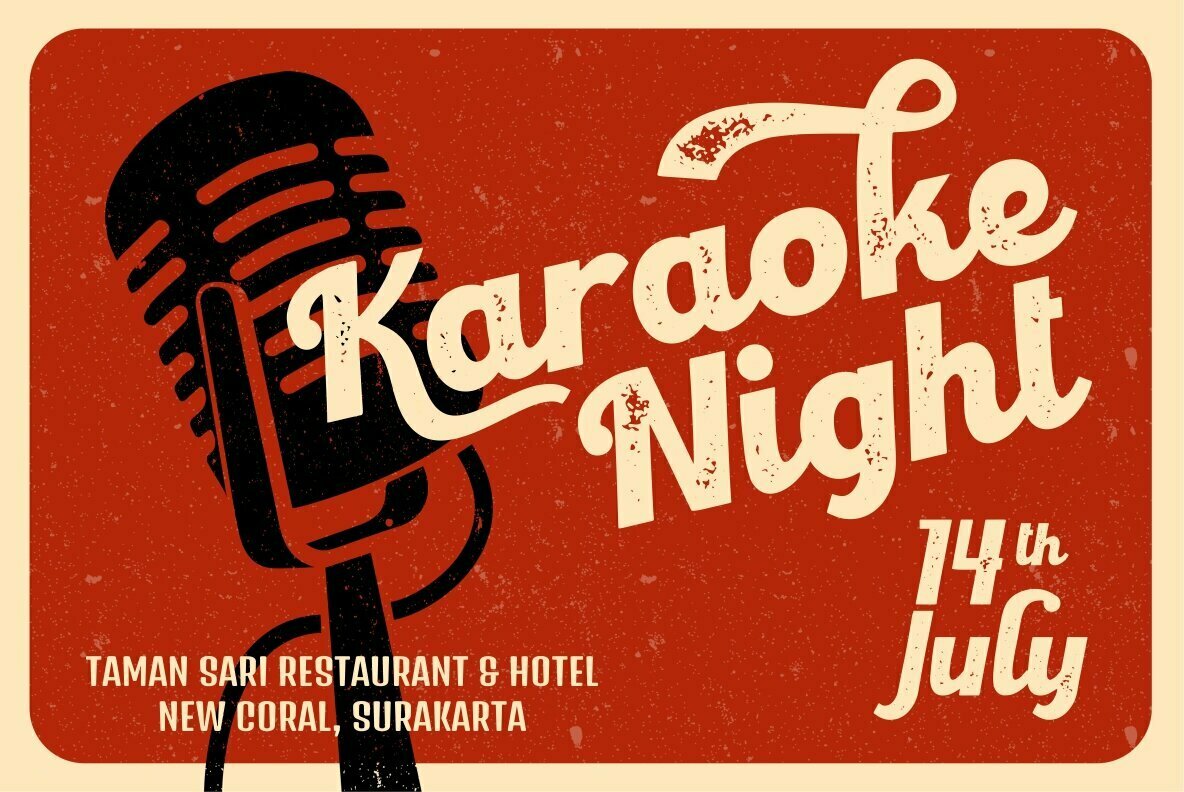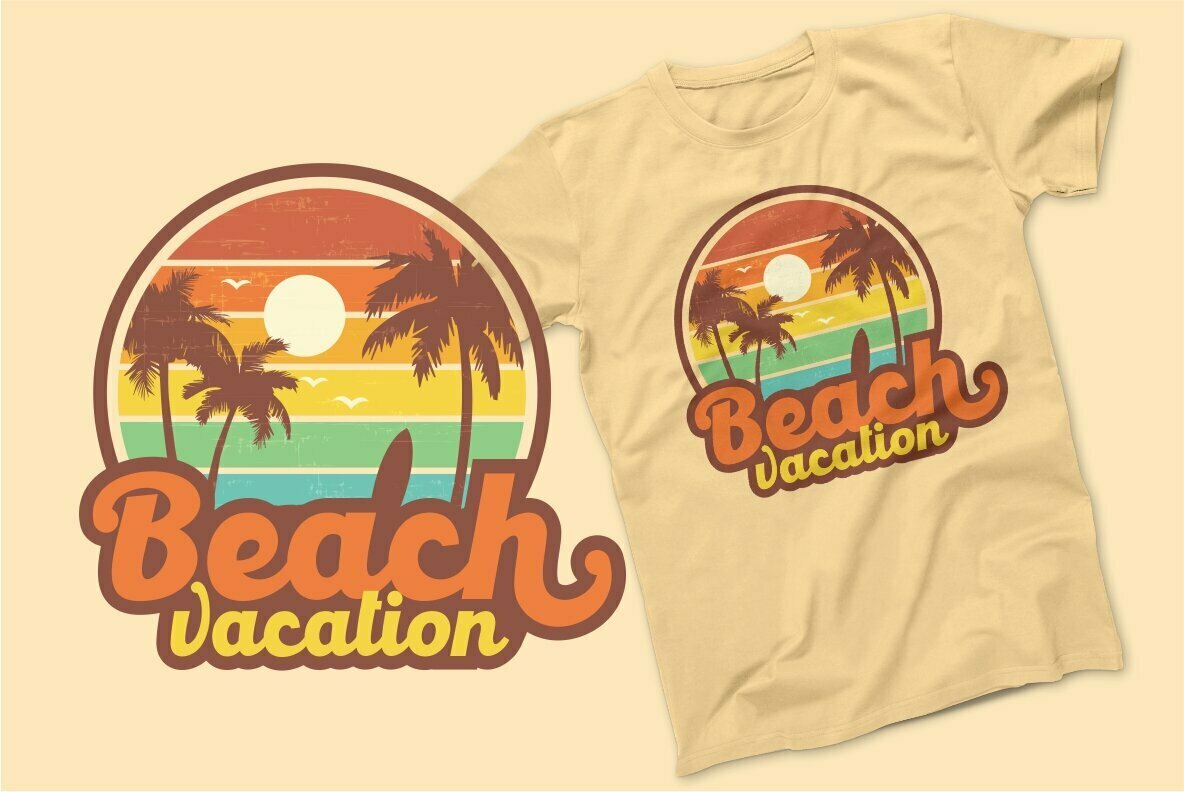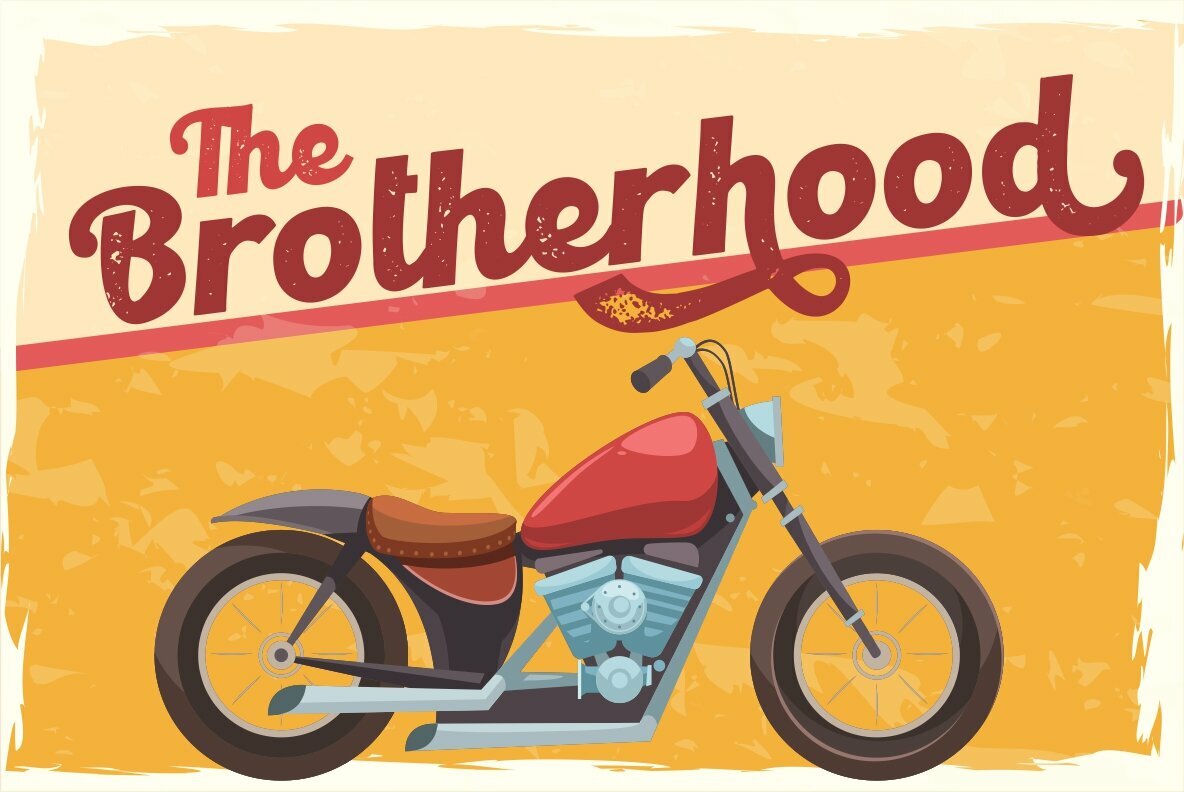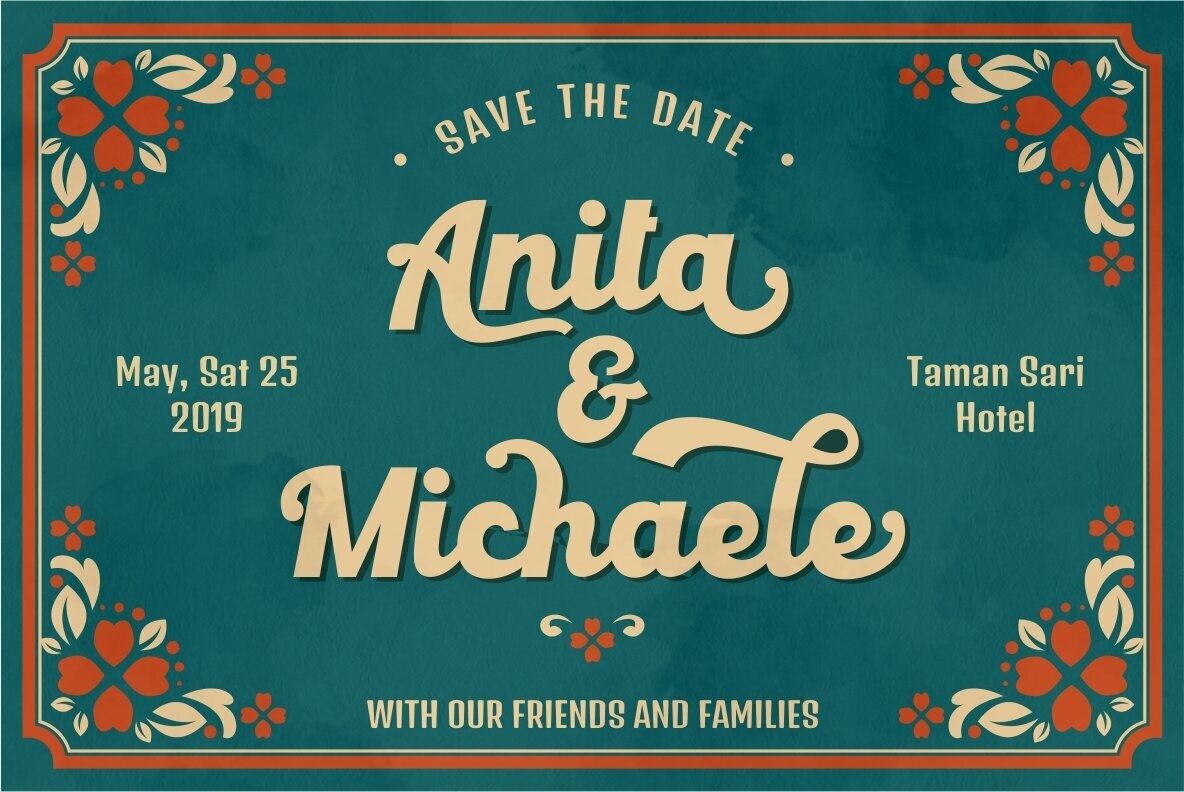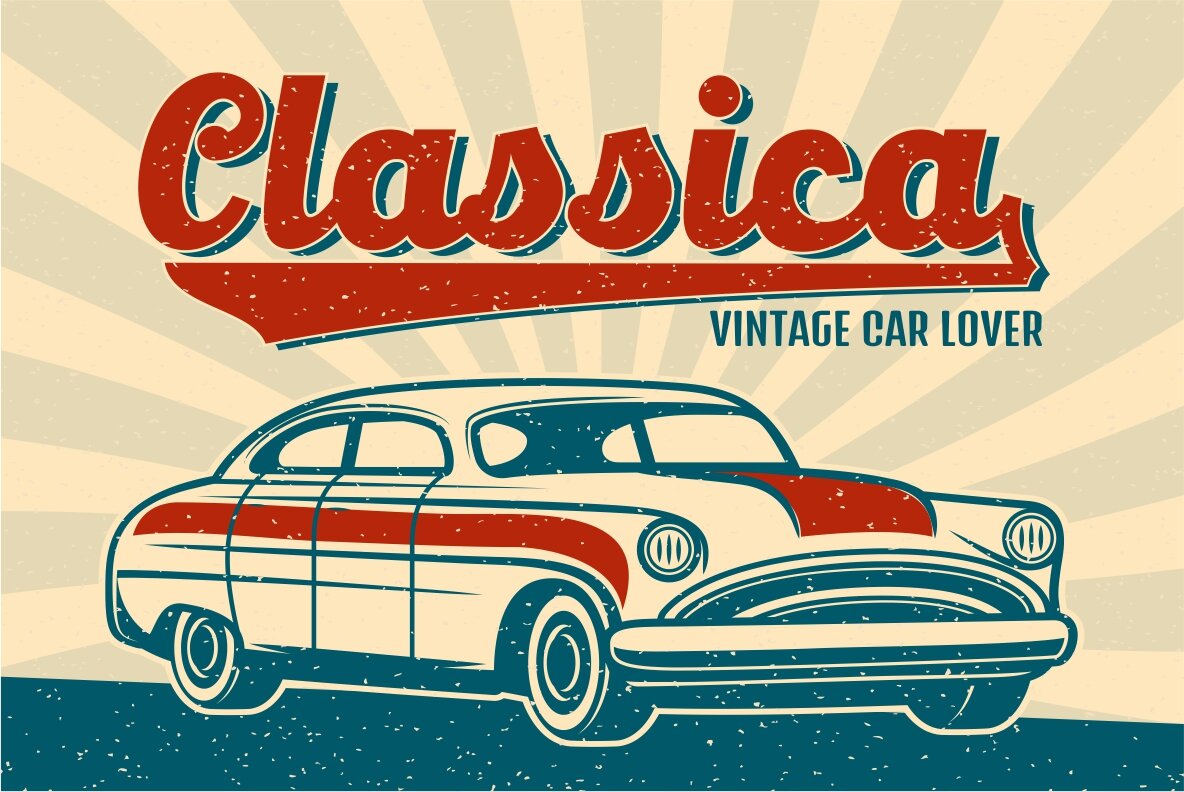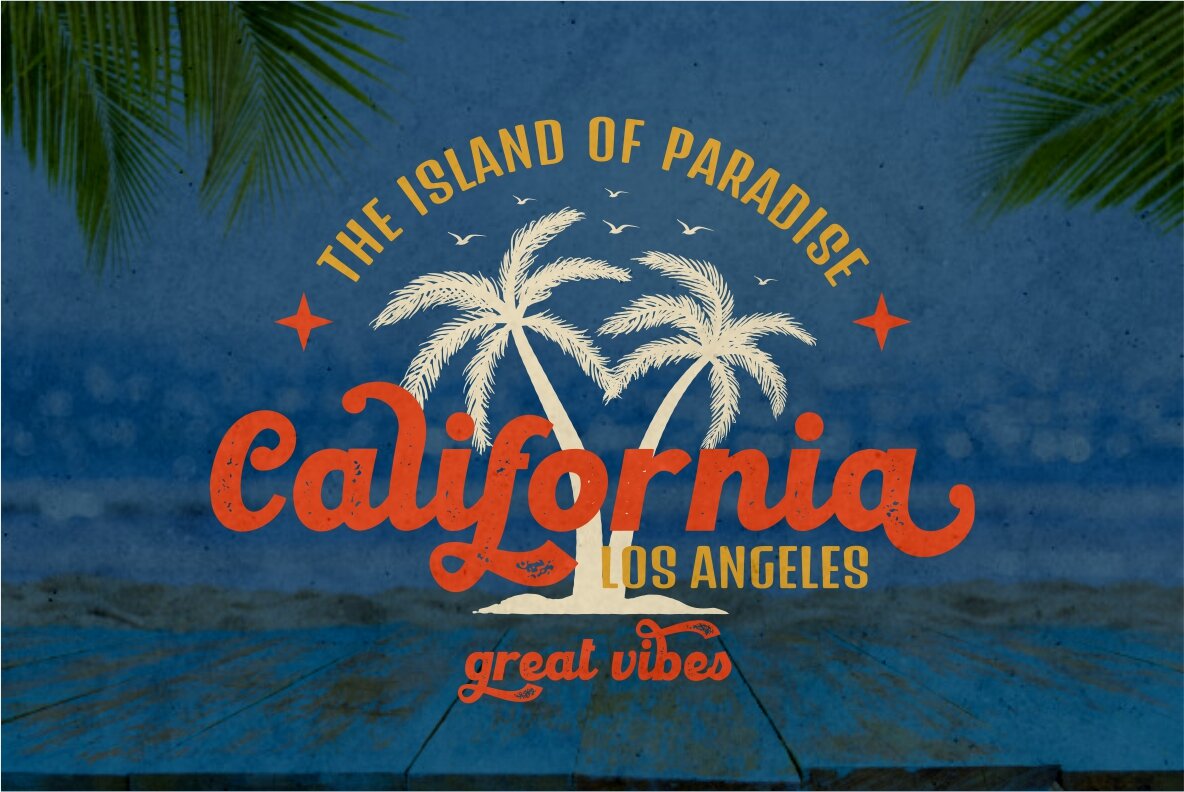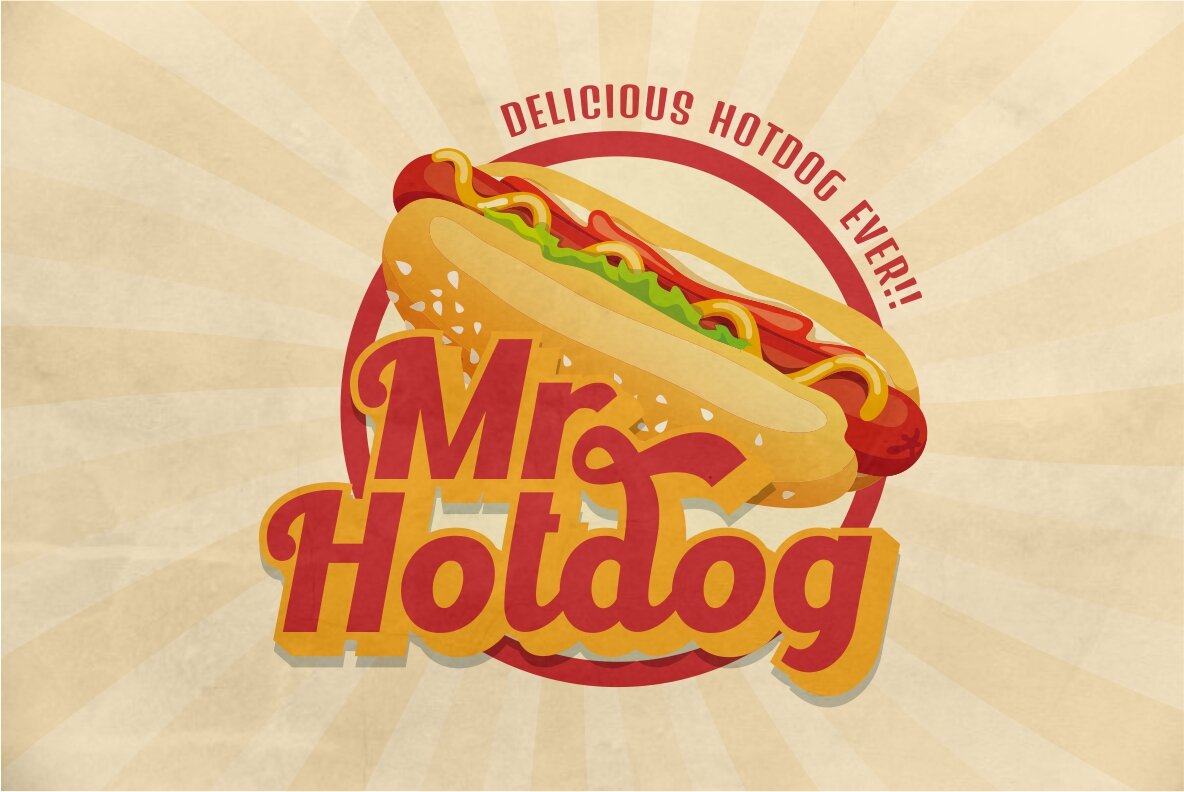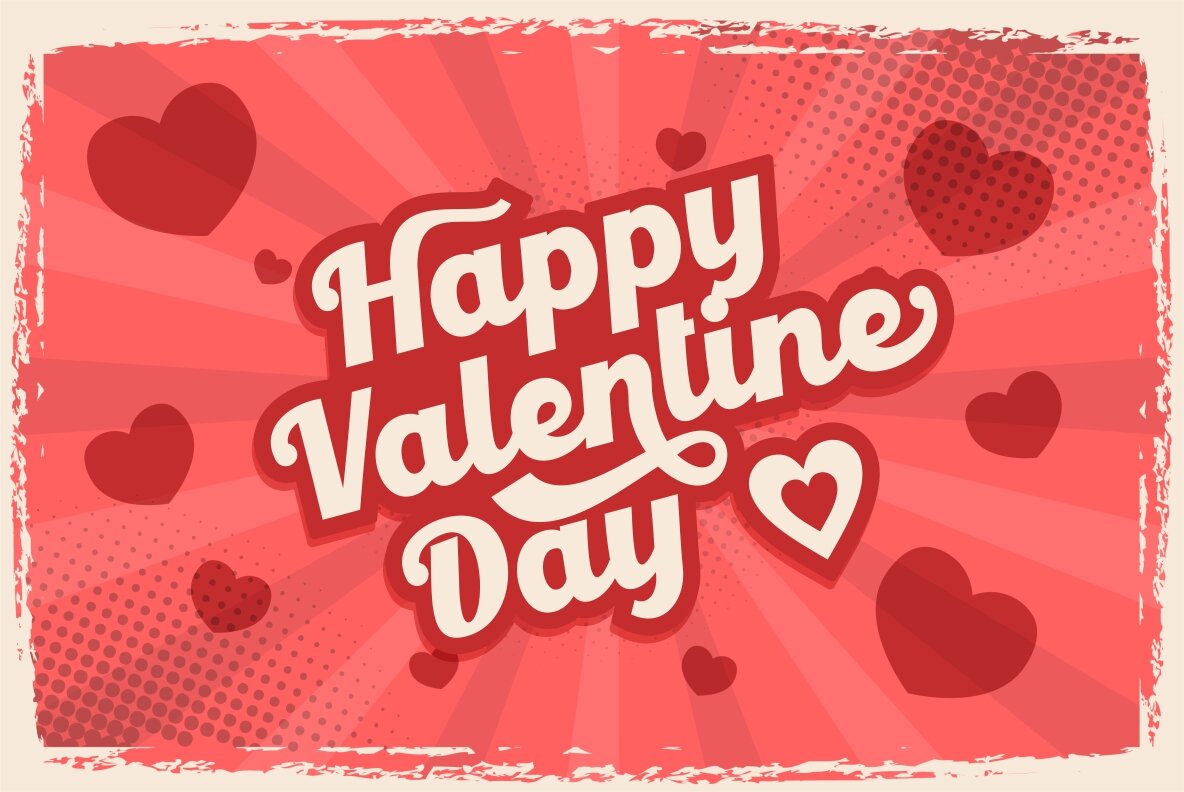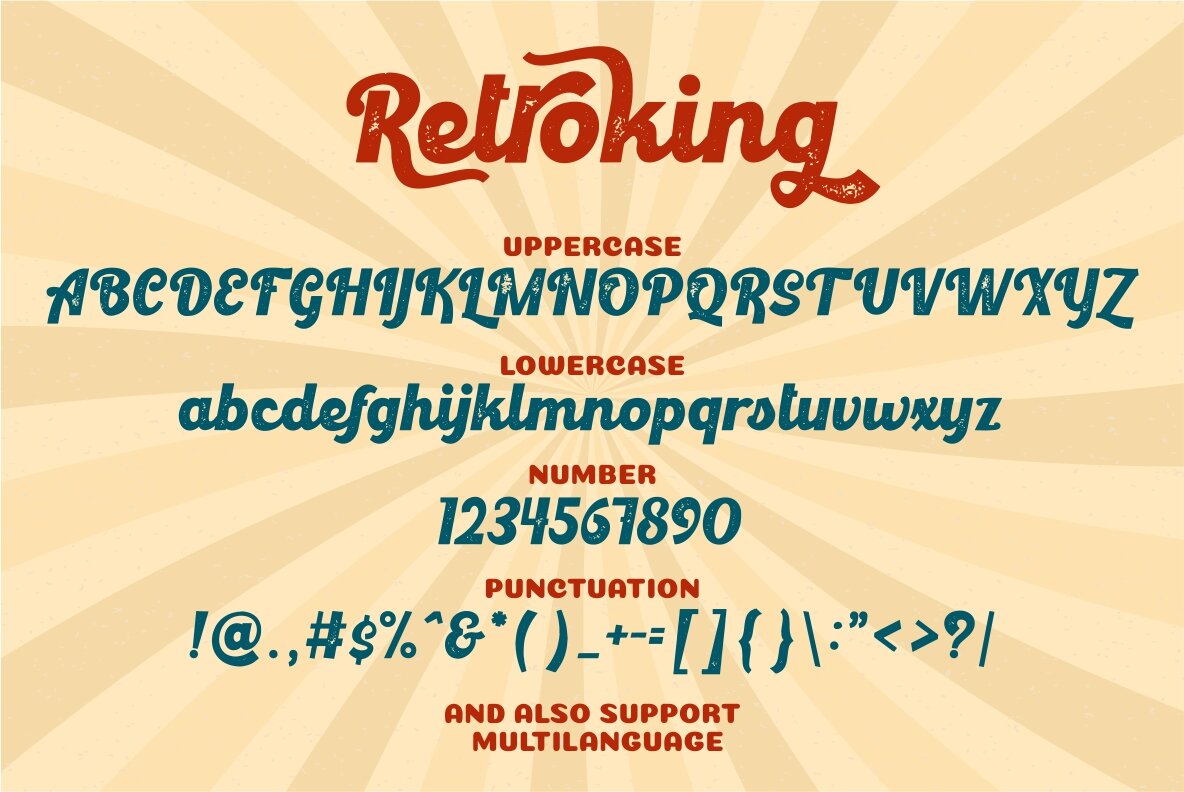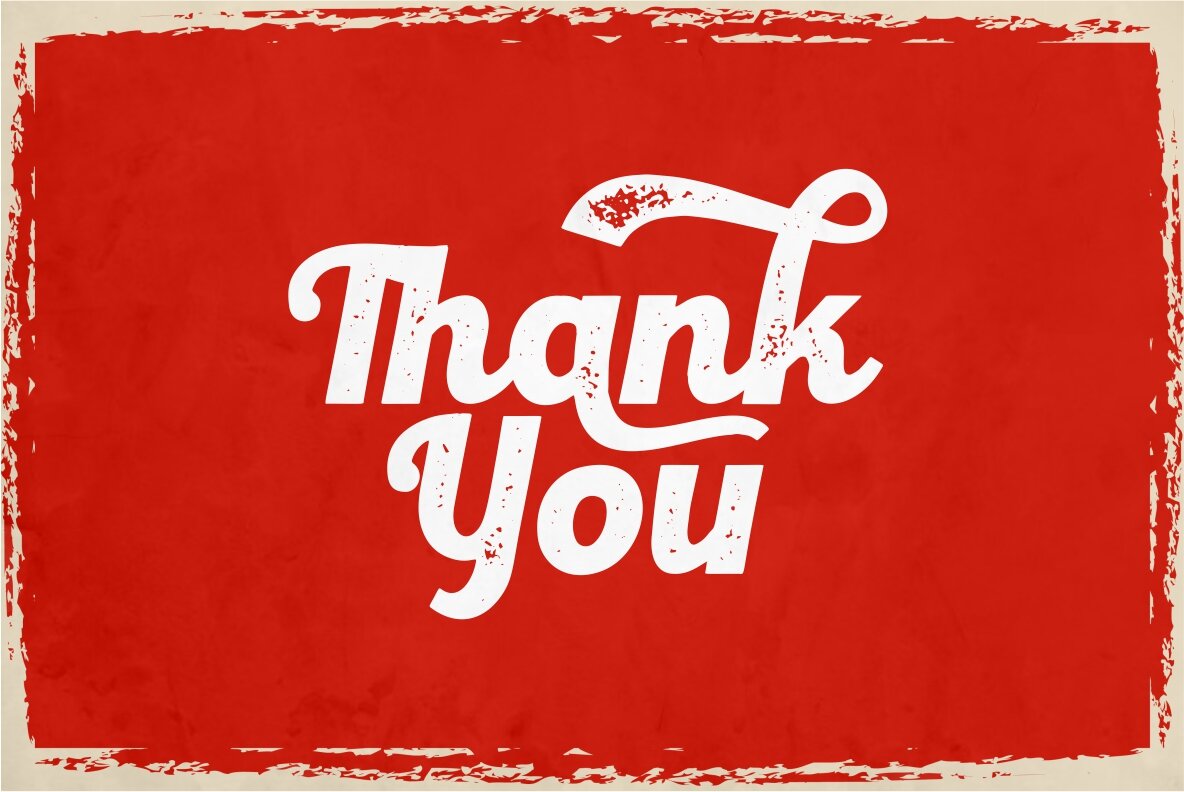
Retroking Font
Retroking by Putra Novembria Candra Kusuma offers a dual personality with its clean and rough versions, catering to a variety of design needs. It's an ideal choice for projects requiring a vintage or retro aesthetic, such as badges, logos, t-shirts, posters, branding, and packaging. This font’s flexibility extends to signage and book covers, making it a valuable asset for your creative repertoire. Beyond its visual appeal, Retroking boasts an array of OpenType features, providing numerous alternates to enhance your typography. Designed to support multiple languages, this font caters to a global audience. Note that accessing its alternate glyphs requires software like Adobe Illustrator, Photoshop, InDesign, or Corel Draw that support OpenType features.Retroking: A Versatile Retro Style Font